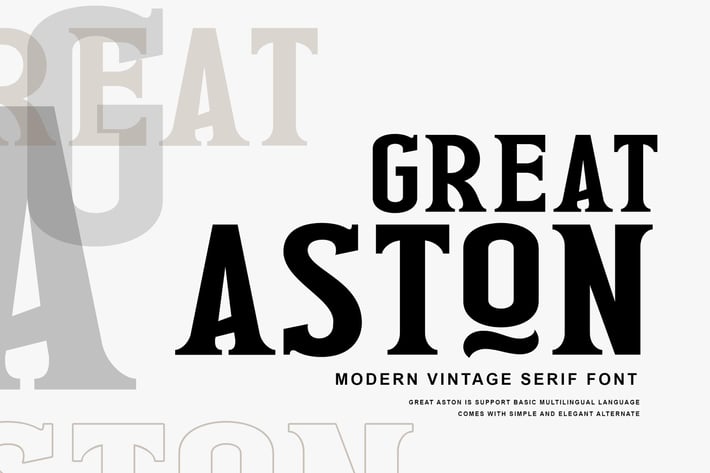
Great Aston Business Serif Font
Great Aston is elegant serif font. It can easily be matched to an incredibly large set of projects like logo, package, advertisement, magazine, , so add it to your creative ideas and notice how it makes them stand out!